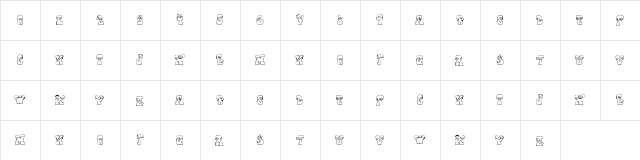
FrostyHoliday Regular
Design Context for FrostyHoliday Typeface
FrostyHoliday is a composed and adaptable typeface that performs quietly and consistently across a wide range of design contexts.